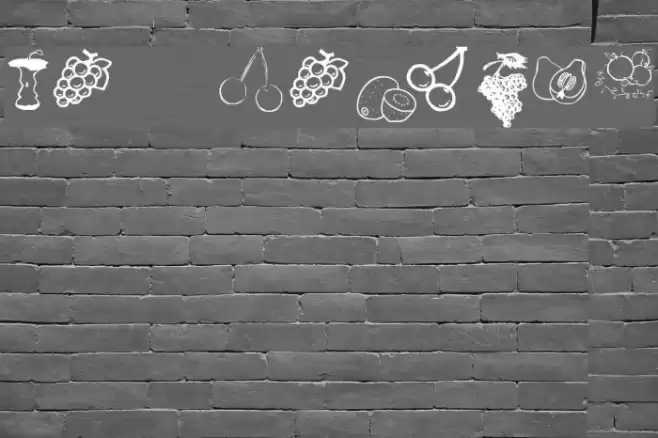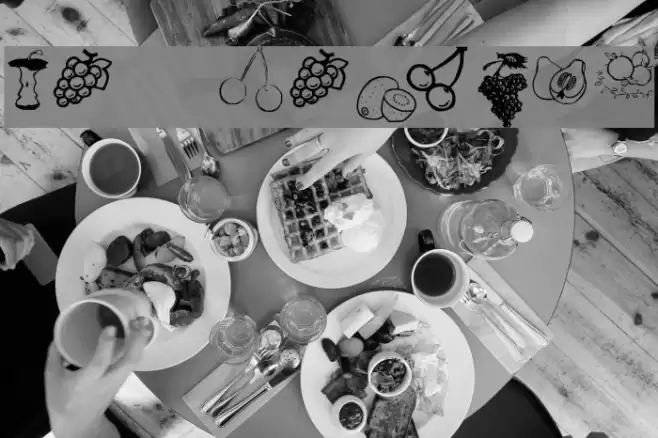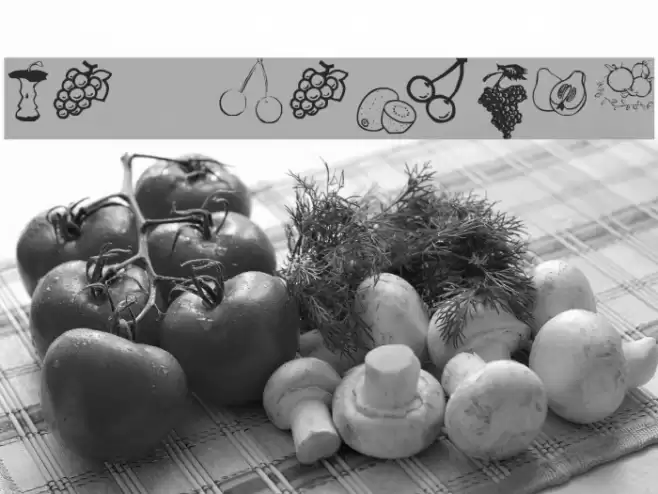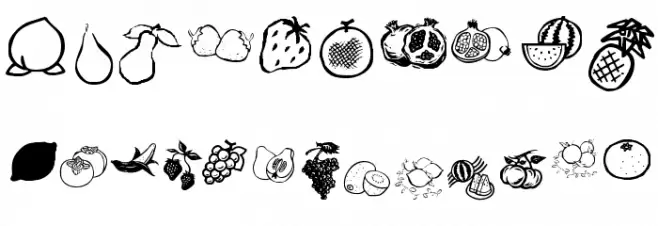
KR Fruitsy Font
KR Fruitsy Description
A playful decorative font featuring hand-drawn fruit illustrations in place of standard alphanumeric and symbol characters, with a whimsical and sketchy line-art style.
Hand-drawn fruit illustrations replace letters and numbers from Uncategorized fonts.
- Proposed Projects: Children’s books, educational materials, food packaging, playful invitations, themed posters.
- Overall Style: Decorative, Playful, Whimsical
- Use Case: Logos, Posters, Themed Headlines, Educational Graphics